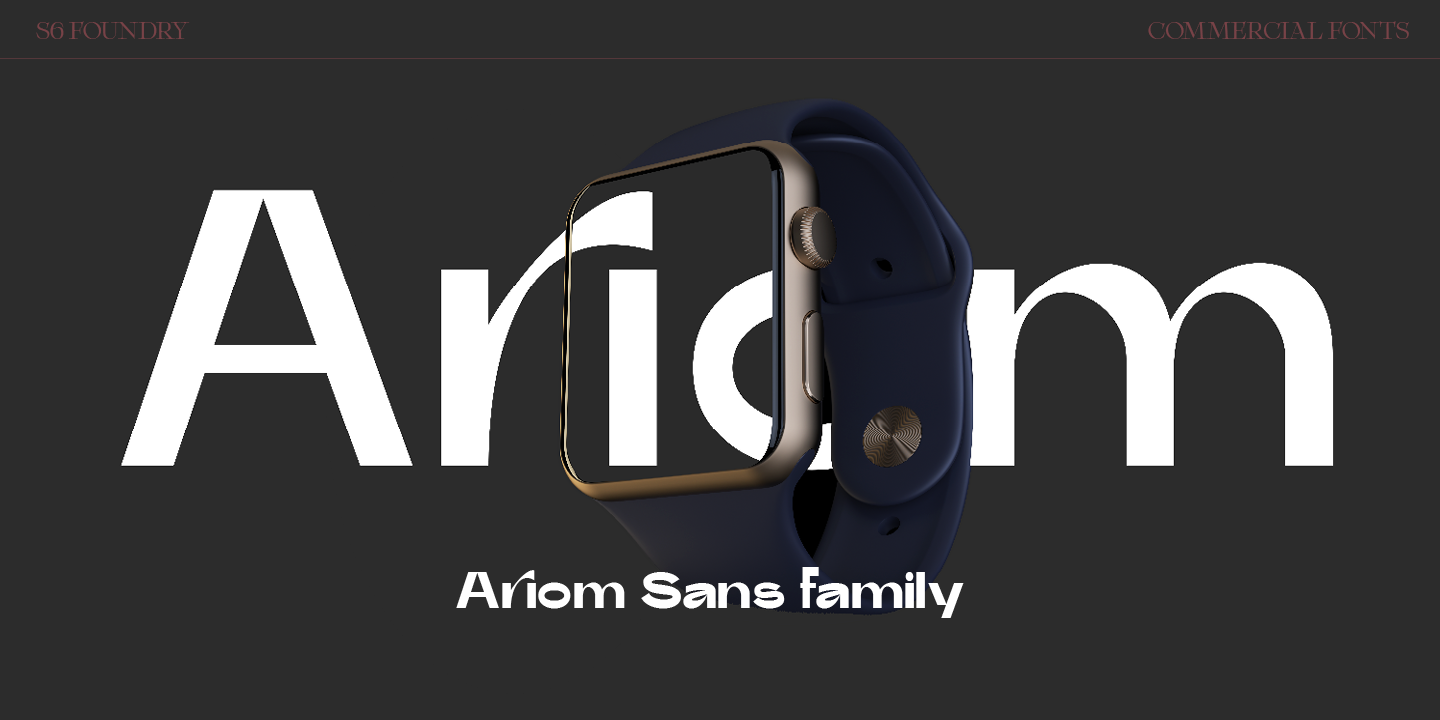
Ariom Sans Font excels in versatile design applications including corporate branding, web interface design, mobile app typography, annual reports, architectural presentations, tech company materials, minimalist packaging, editorial layouts, signage systems, and professional documentation. This refined typeface brings clarity and modernity to any communication project.
What makes Ariom Sans Font truly exciting is its perfect balance of geometric precision and humanist warmth. The font features clean, unadorned letterforms with carefully adjusted proportions that ensure excellent readability across all sizes and media. Its neutral yet distinctive character makes it ideal for brands seeking timeless appeal, professional credibility, and versatile application across diverse design contexts and platforms.
The Ariom Sans Font family encompasses comprehensive weights and styles including Thin, Light, Regular, Medium, Bold, Black, and corresponding Italic variations. These extensive options allow designers to create sophisticated typographic hierarchies with consistent visual identity while maintaining optimal legibility for both display and text applications.
Whether you're developing corporate identity systems, creating digital interfaces, or designing editorial publications, Ariom Sans Font Free Download provides the professional quality and typographic flexibility that modern design projects demand. Its exceptional versatility and timeless aesthetics make it an essential tool for designers requiring reliable, elegant typography that performs beautifully across print, digital, and environmental applications.